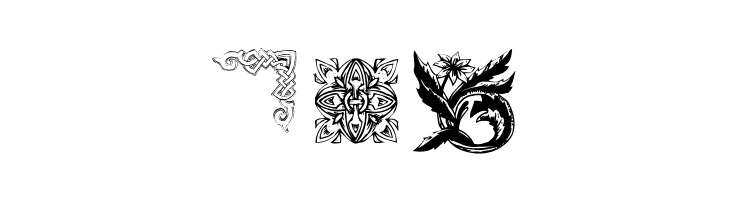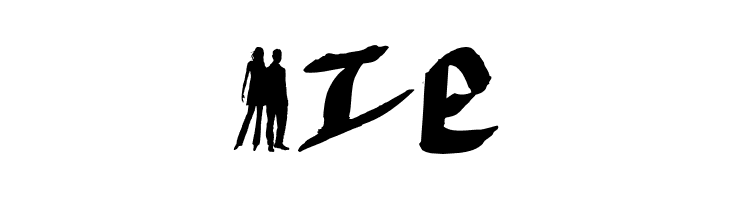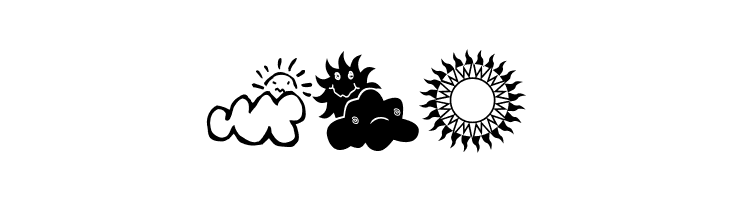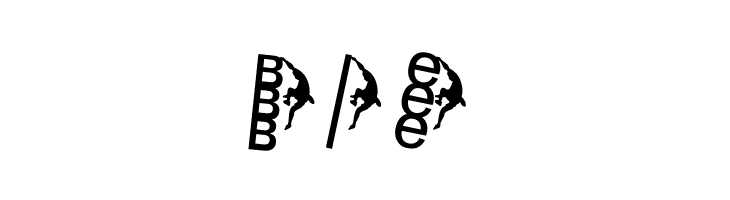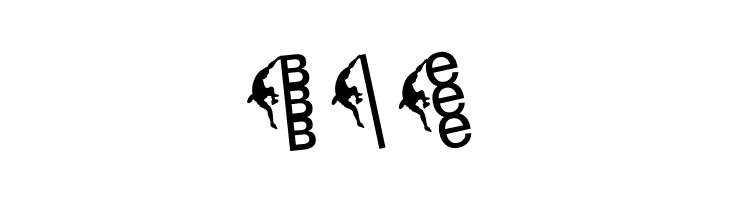
Intricate and decorative ornaments with vintage and classical motifs.
A minimalist, geometric font with thin, linear strokes and a modern aesthetic.
A geometric and futuristic font with sharp angles and clean lines.
A collection of abstract and artistic symbols, each character is a unique graphic design.
A dynamic, calligraphy-inspired font with bold, fluid strokes and a modern twist.
A collection of sun and celestial-themed decorative icons.
A bold, dynamic font with a climber motif integrated into each character.
A bold, adventurous font with integrated climber silhouettes.
A collection of vintage-style illustrative characters depicting literary themes.
Playful dingbat font with cartoon insect illustrations.